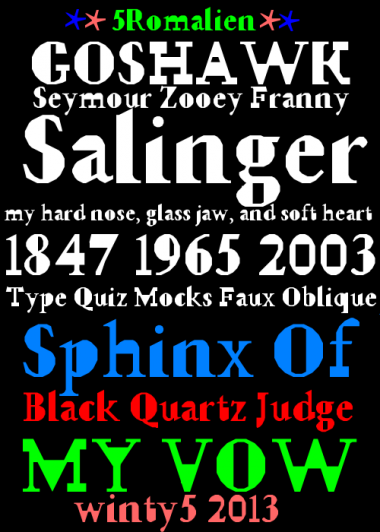
5Romalien
Noah F. Ross (winty5)
Not Minion Pro anymore, is it?
You have converted this into an almost hand-cut, cartoon-like form. Good fun :) 10/10
Positively playful, you have definitely transformed this into something that is your own.
Thanks four, when I was designing this, I wanted to fool people, who would think that this was definitely not based off of Minion.